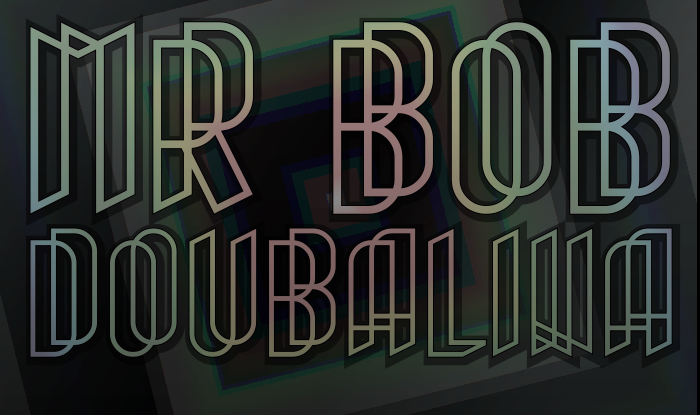
• Isometric 3D outline style typeface.
The glyph have a exact copy slighly elevated and to the right of its original which I then connected with eachother to create the box-like three-dimensional idea.
Because of some serious design difficulties it remains far from complete, but I am kind of done with it for now due to this. For now only support for uppercase, no numerals and very limited punctuations. I think I fully kerned it, or at least everything that is important. On last thing I need to mention, the smallest open spaces doesn't allow this font to work in very small size. These will look filled at smaller point size.
I'm not sure if I will ever try another attempt to finish it at a later stage. (who will tell..) ;)
But I think what I've got so far is too cool for not publishing it. So for now it would do just fine as a logotype or for a decorative usage but not much else.
Very cool, love the sample! The N is not recognizable though, and the W could be improved also.